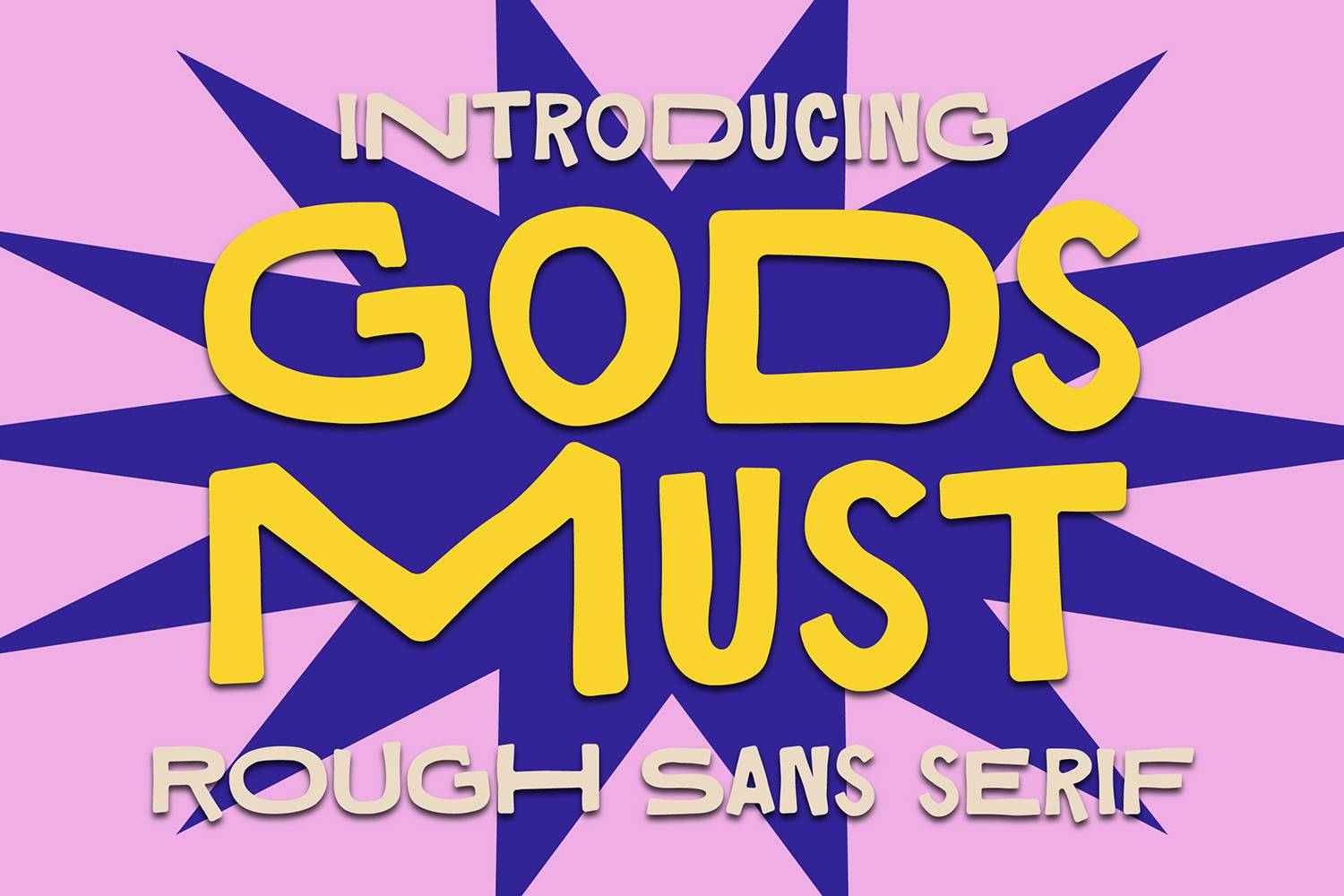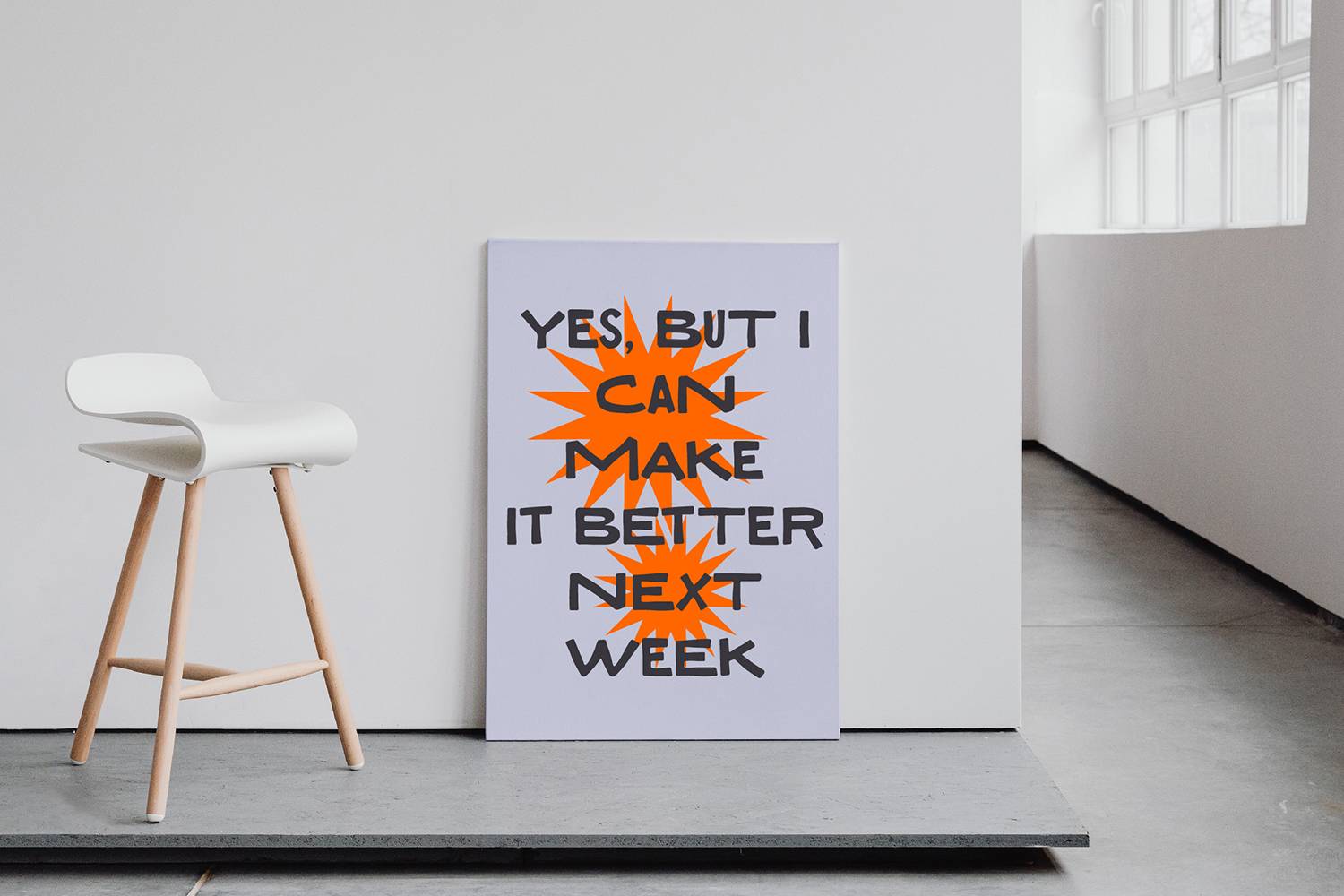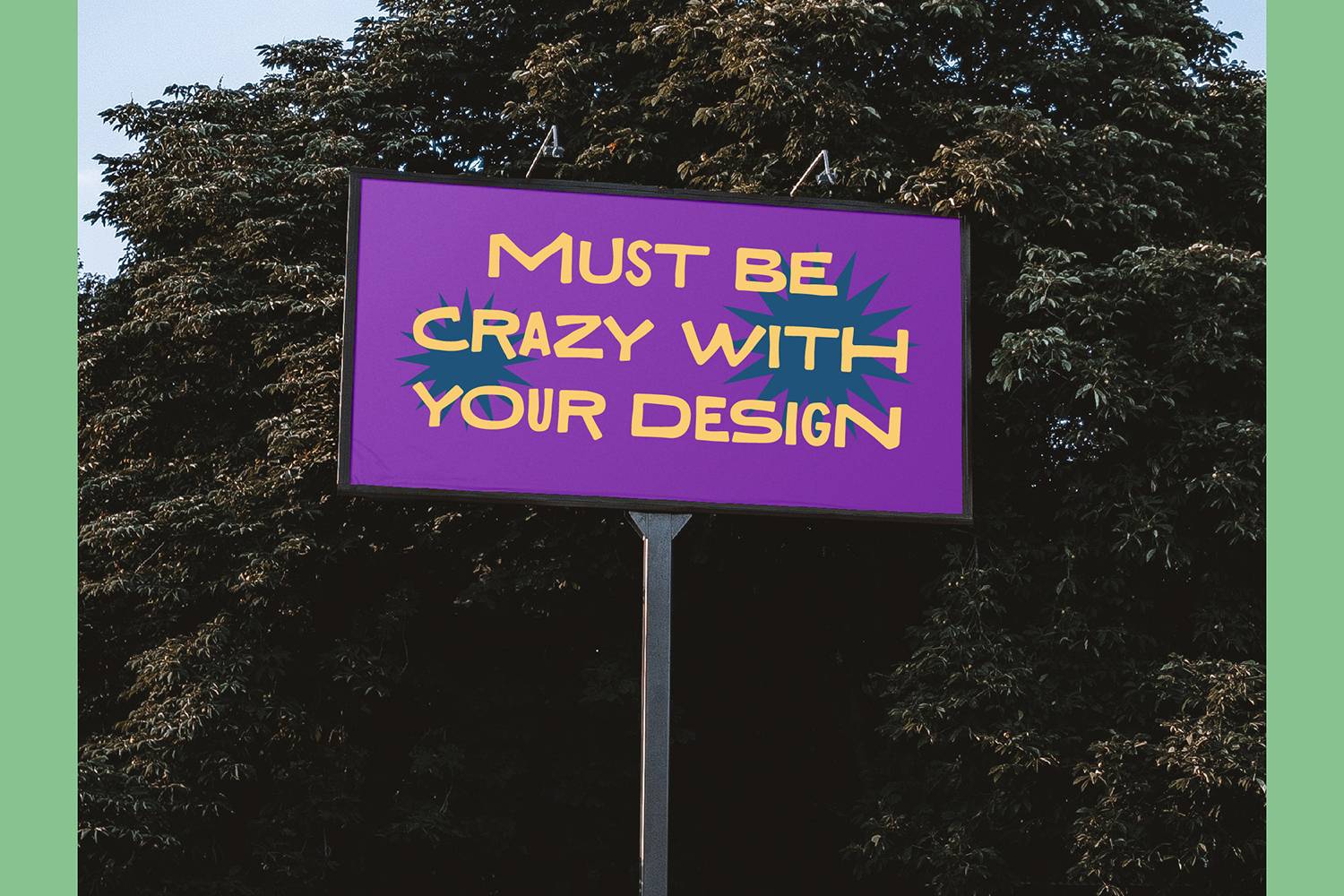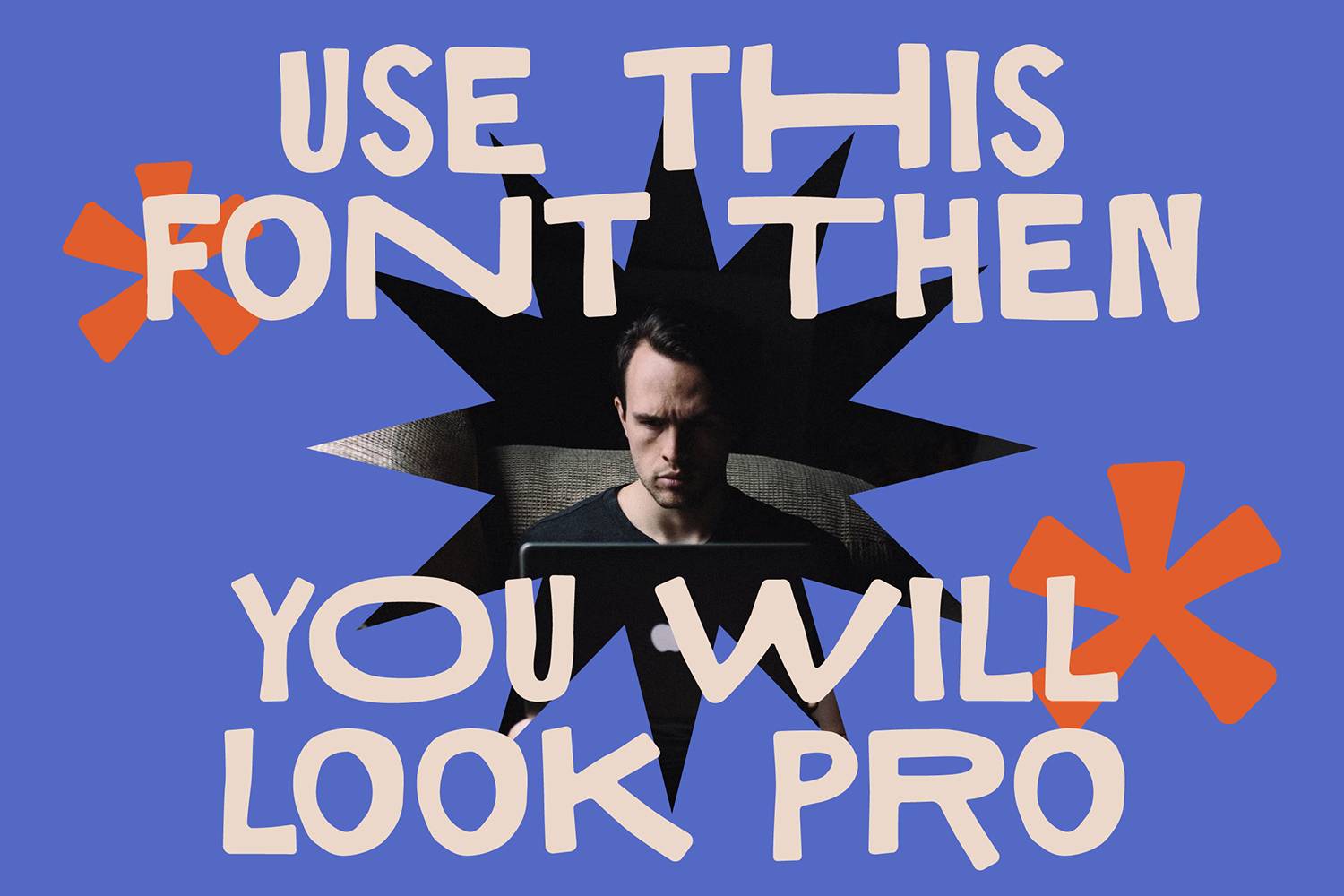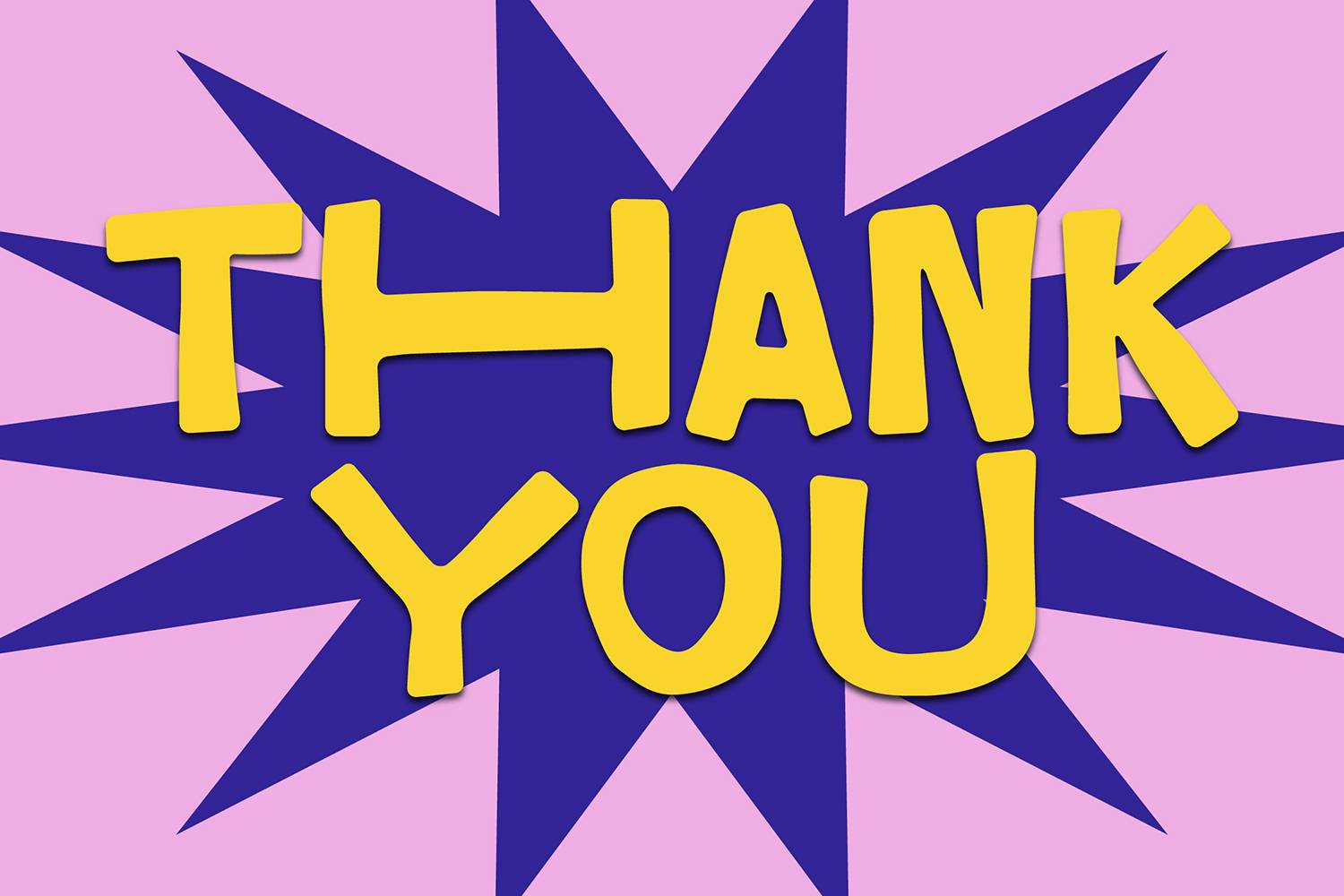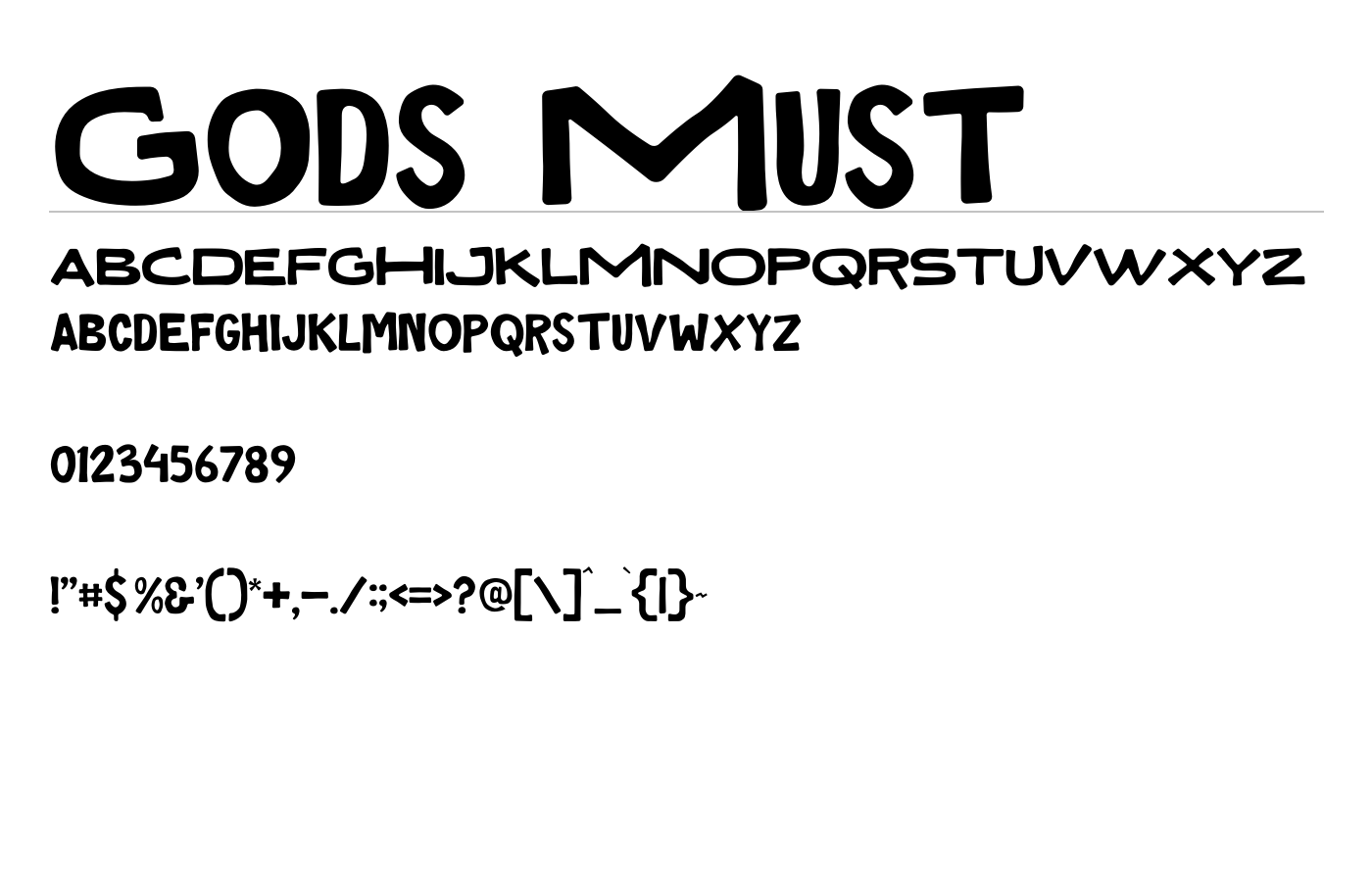
Gods Must Font is a bold, quirky sans serif with a playful and hand-drawn feel, featuring uneven strokes and slightly irregular letter shapes that add character and charm. Its casual, approachable style suits creative projects, children's materials, and informal branding, providing a fun and energetic vibe perfect for logos, posters, and headlines where personality and warmth are desired.
Gods Must Font
About Gods Must Font